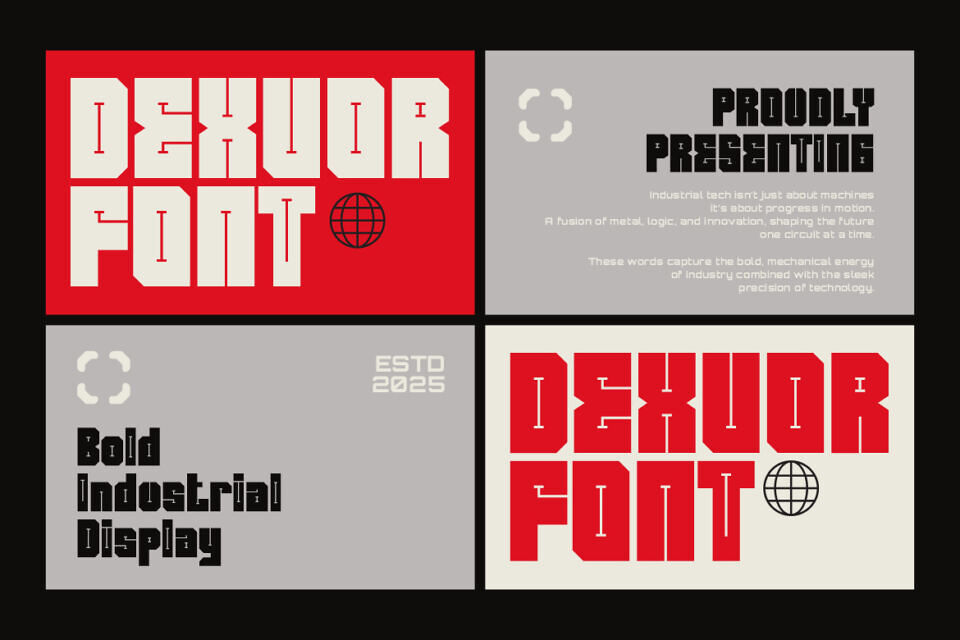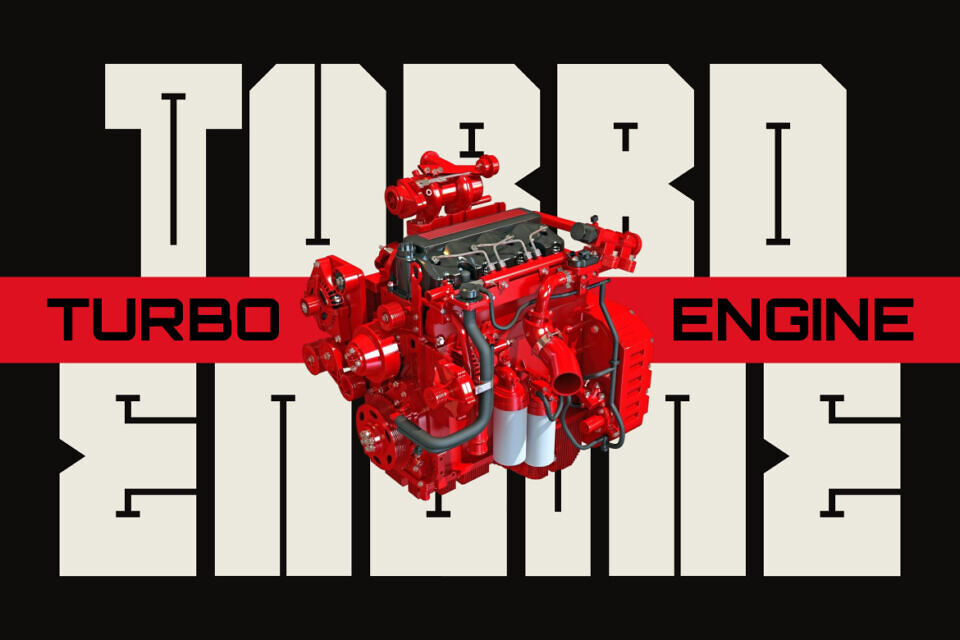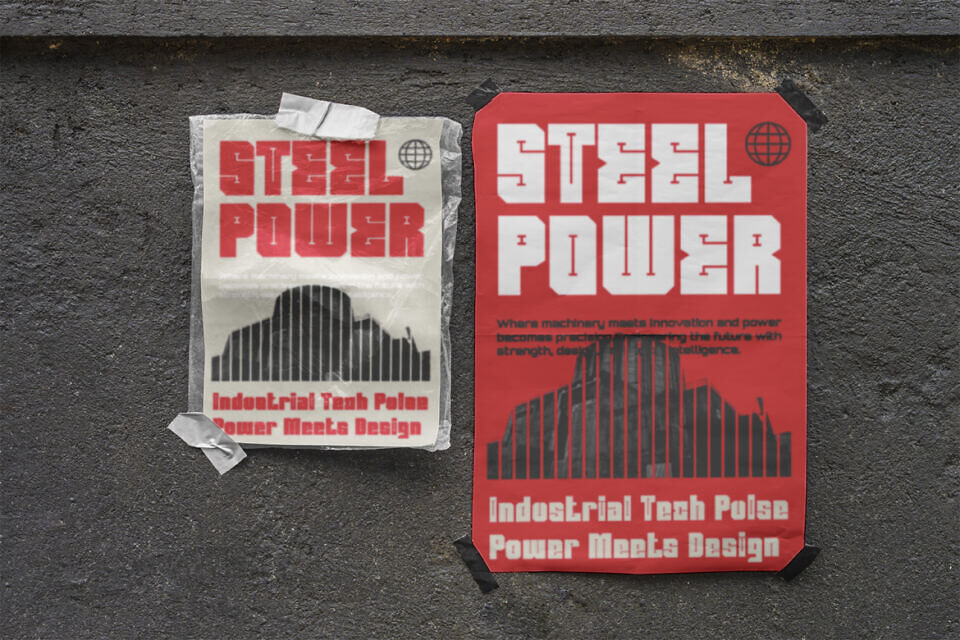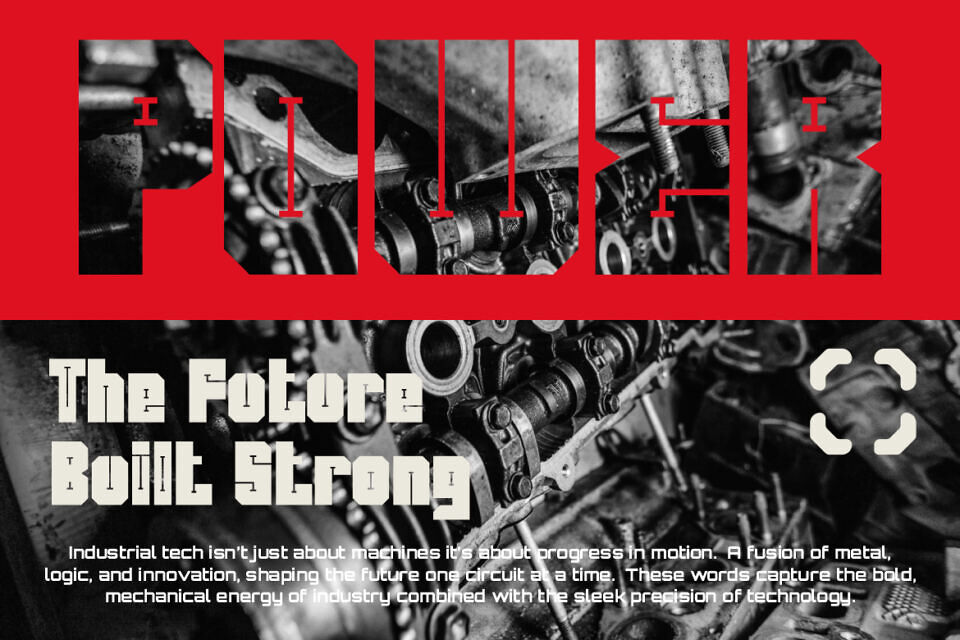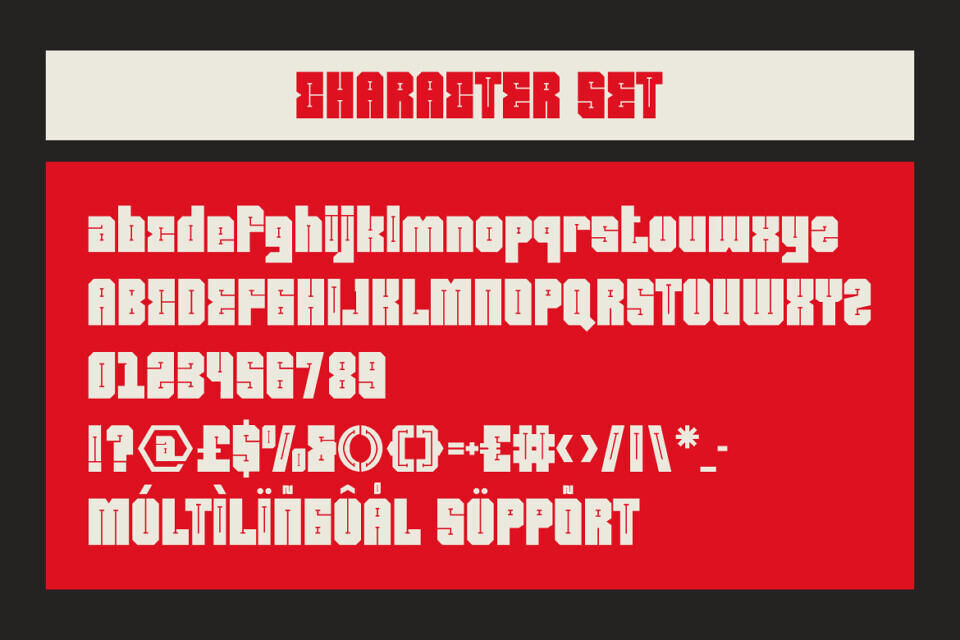
Dexvor Font
Dexvor Bold is a sturdy, industrial-style font with angular lines and strong geometry. Its thick, mechanical strokes evoke a sense of precision and power.
Perfect for designs that require authority and a technical edge, this font is ideal for branding, logos, and headlines, adding a tough, industrial tone to any project. Its bold style conveys innovation and strength, making it suitable for a variety of applications, from engineering and tech to film and digital promos.